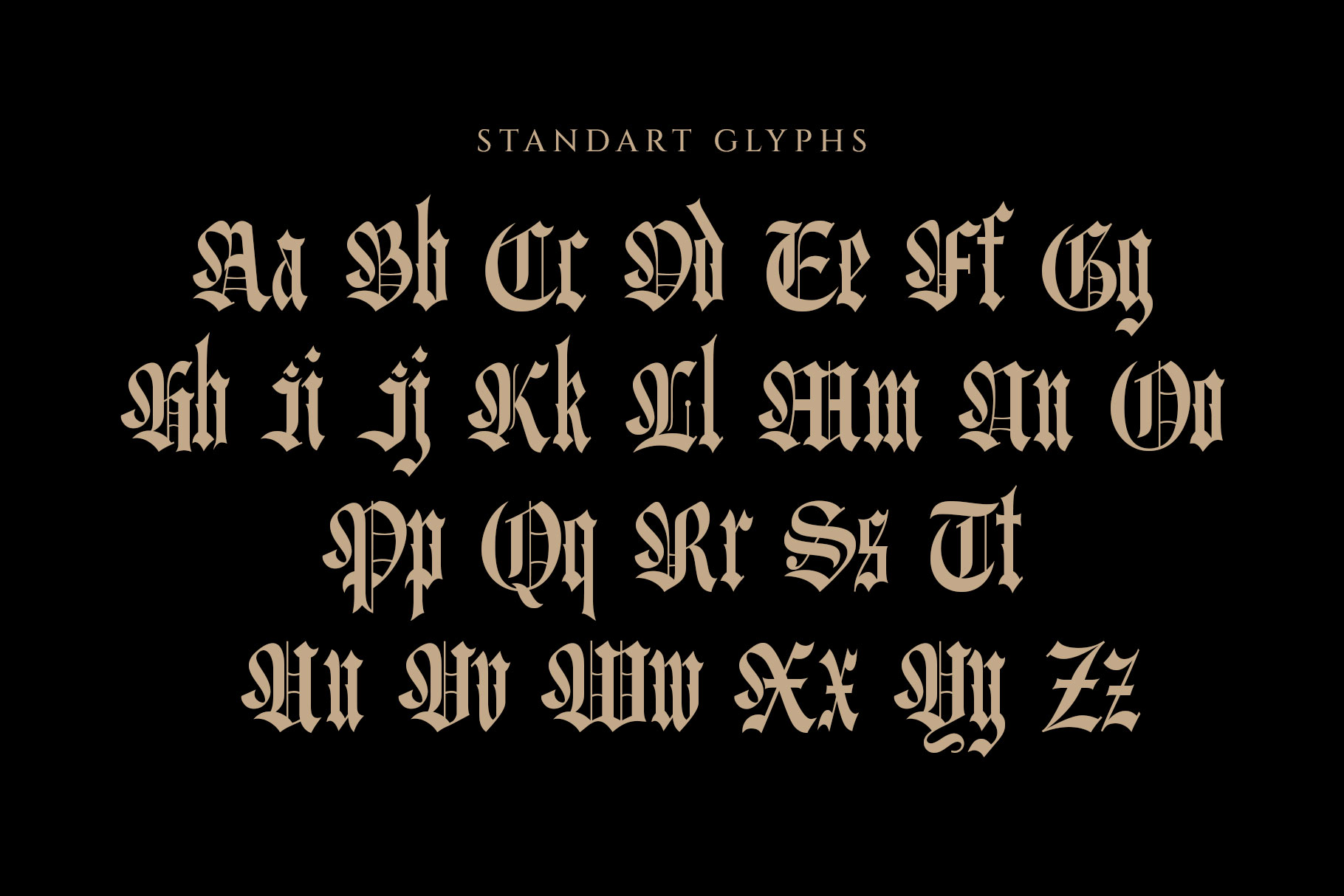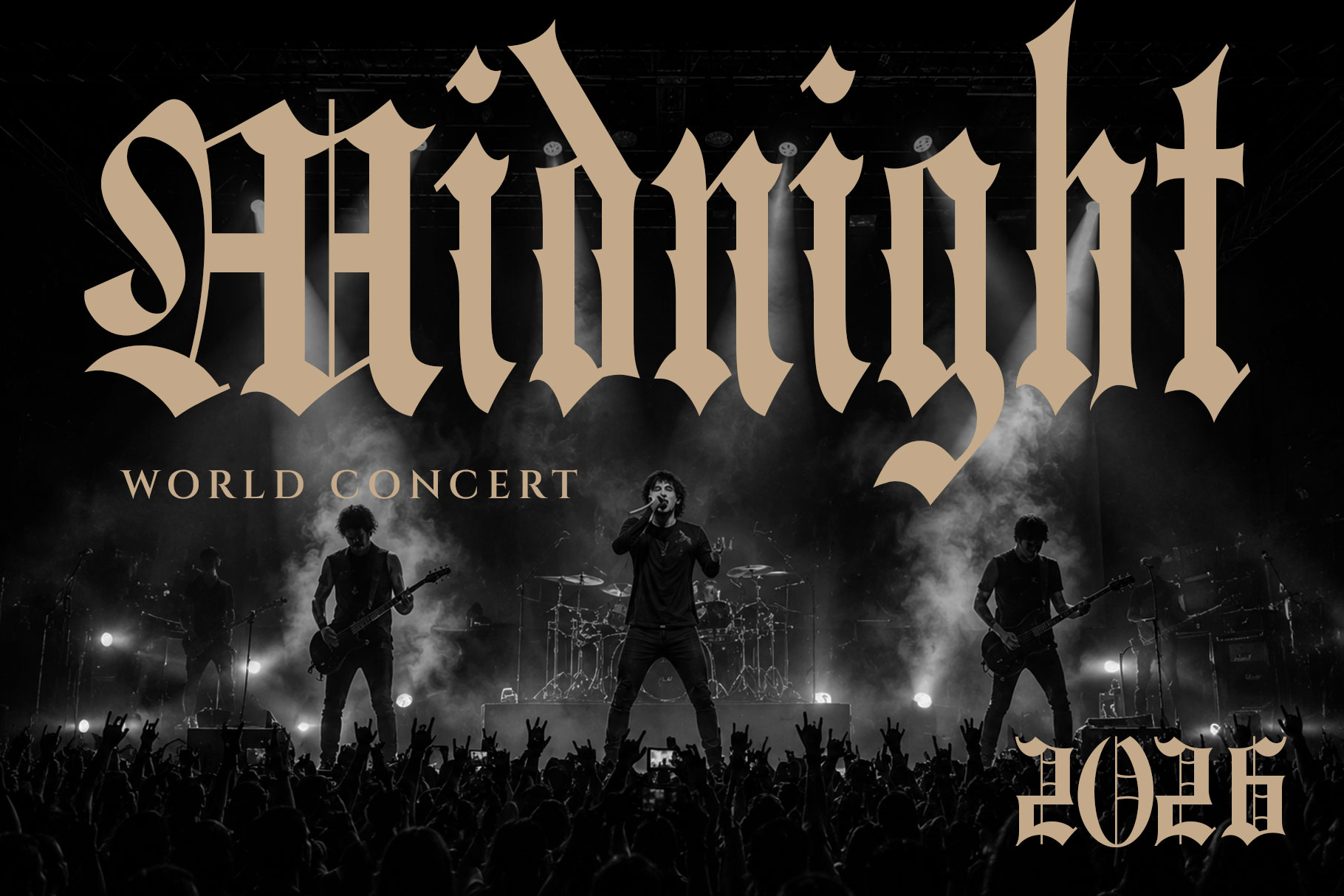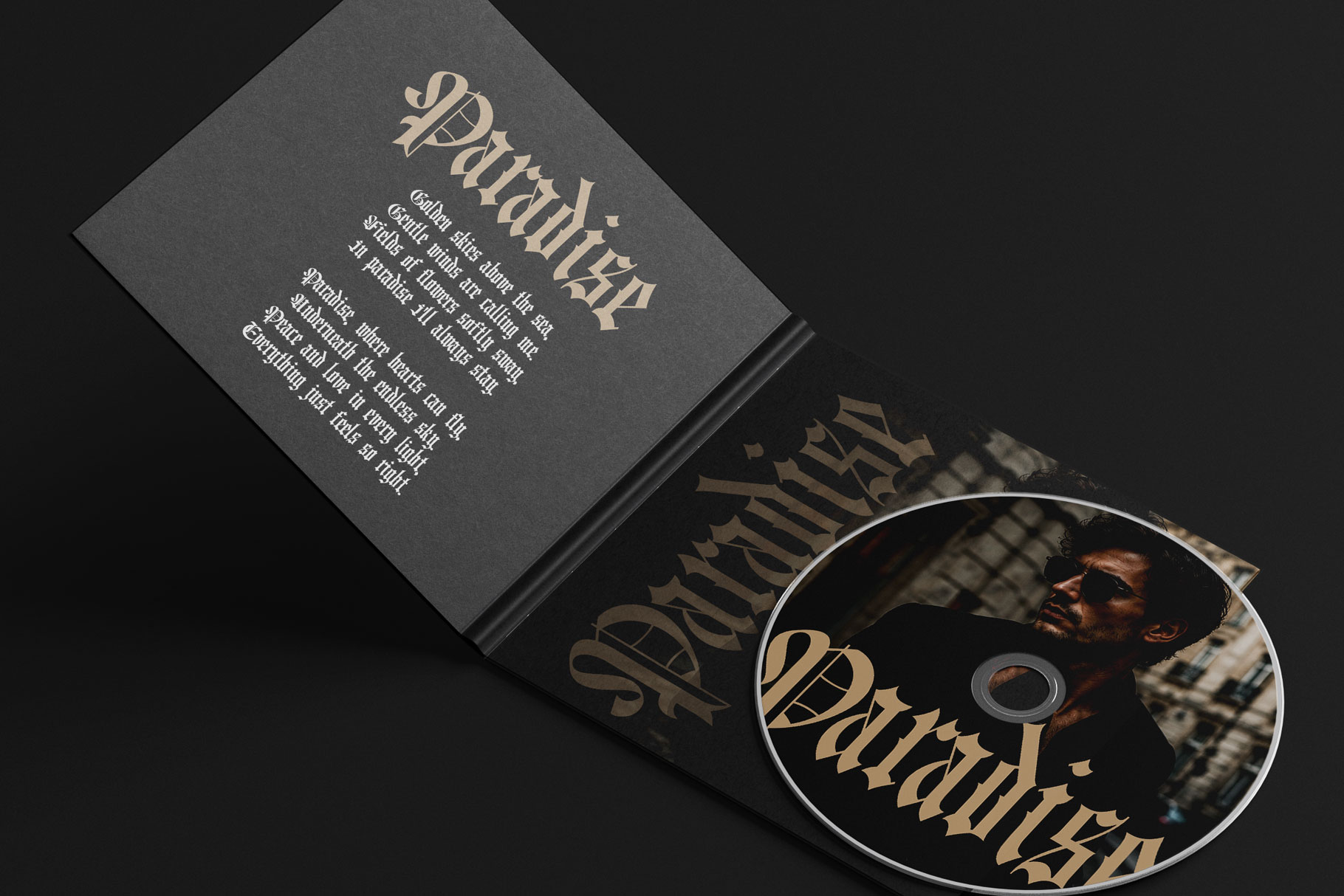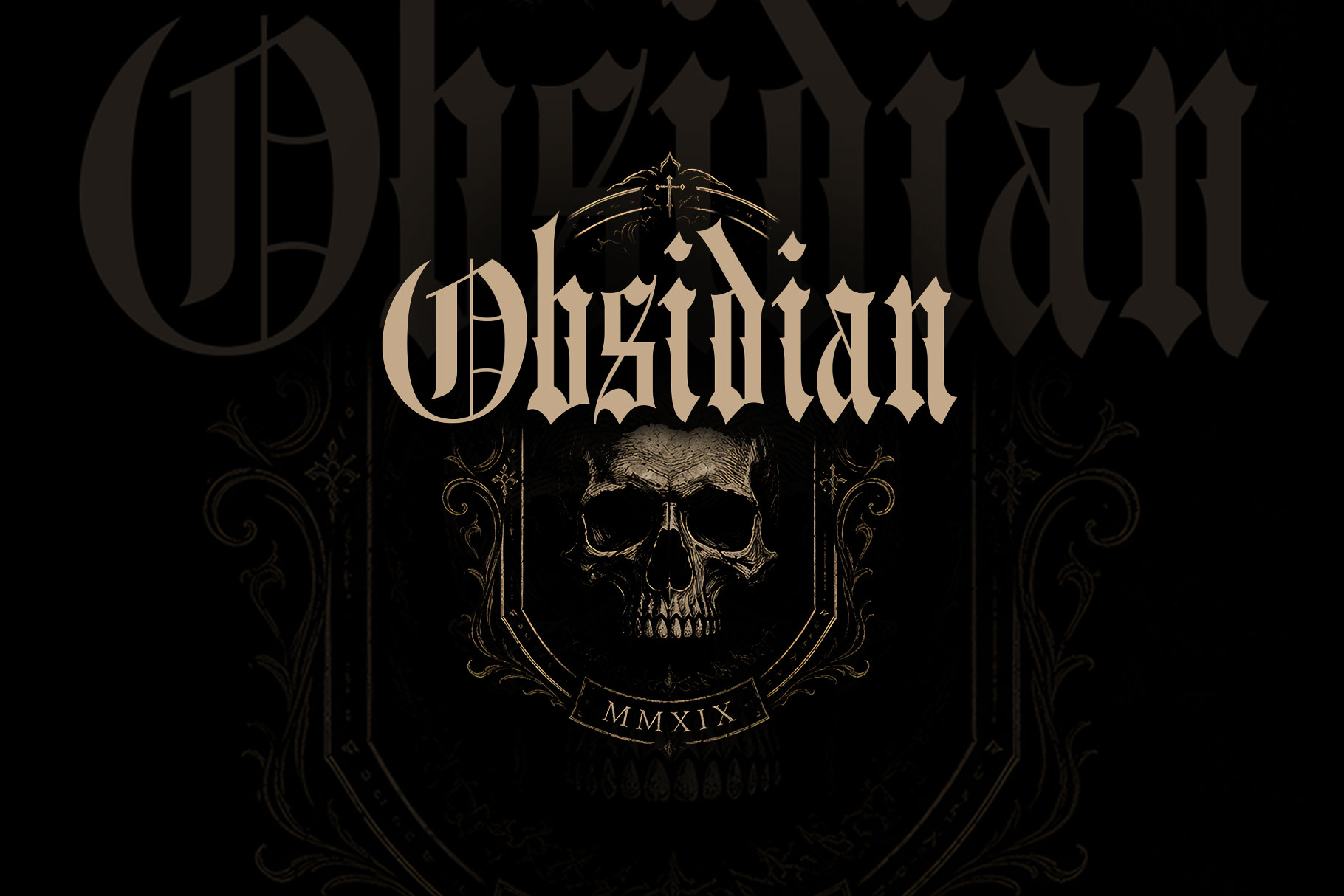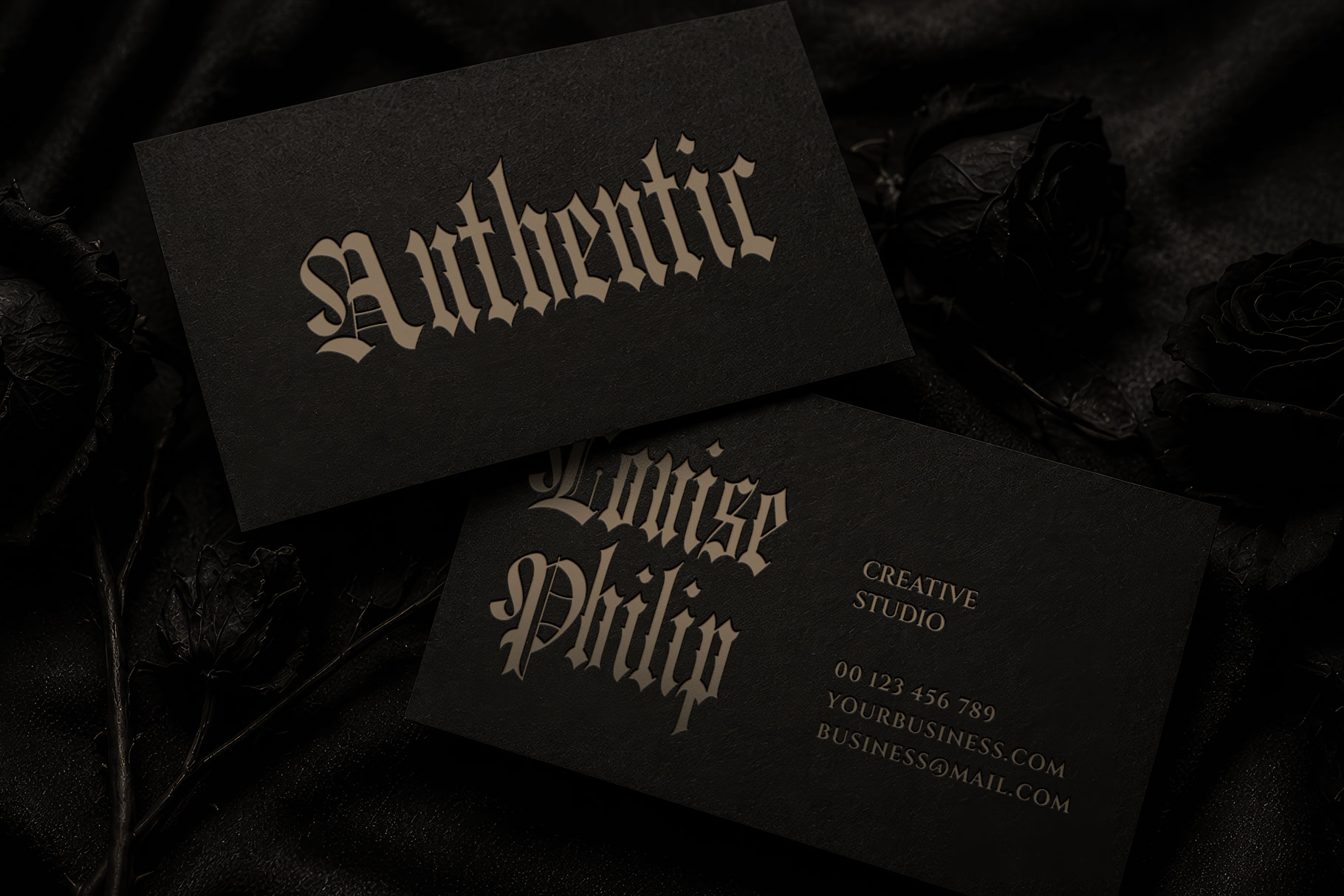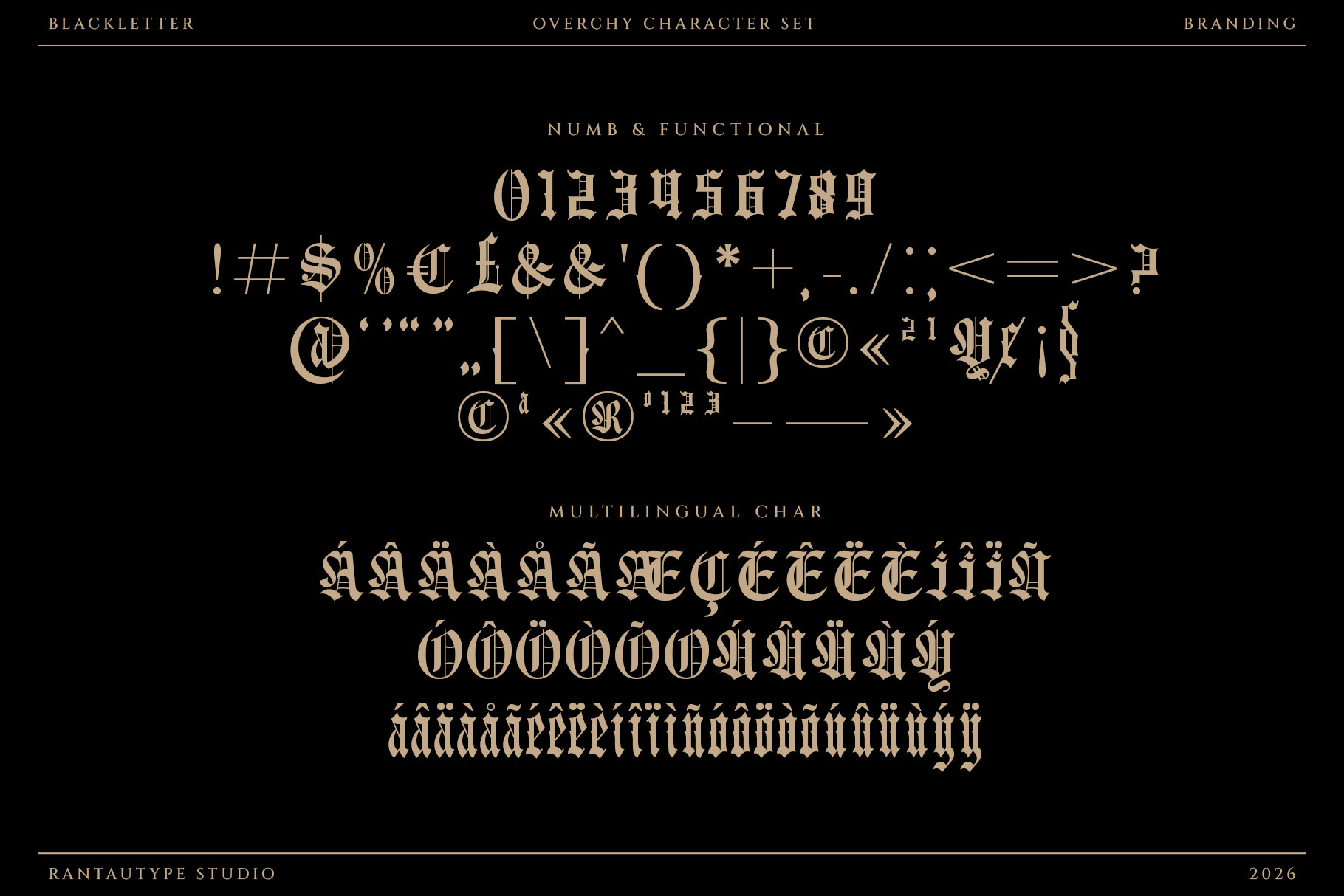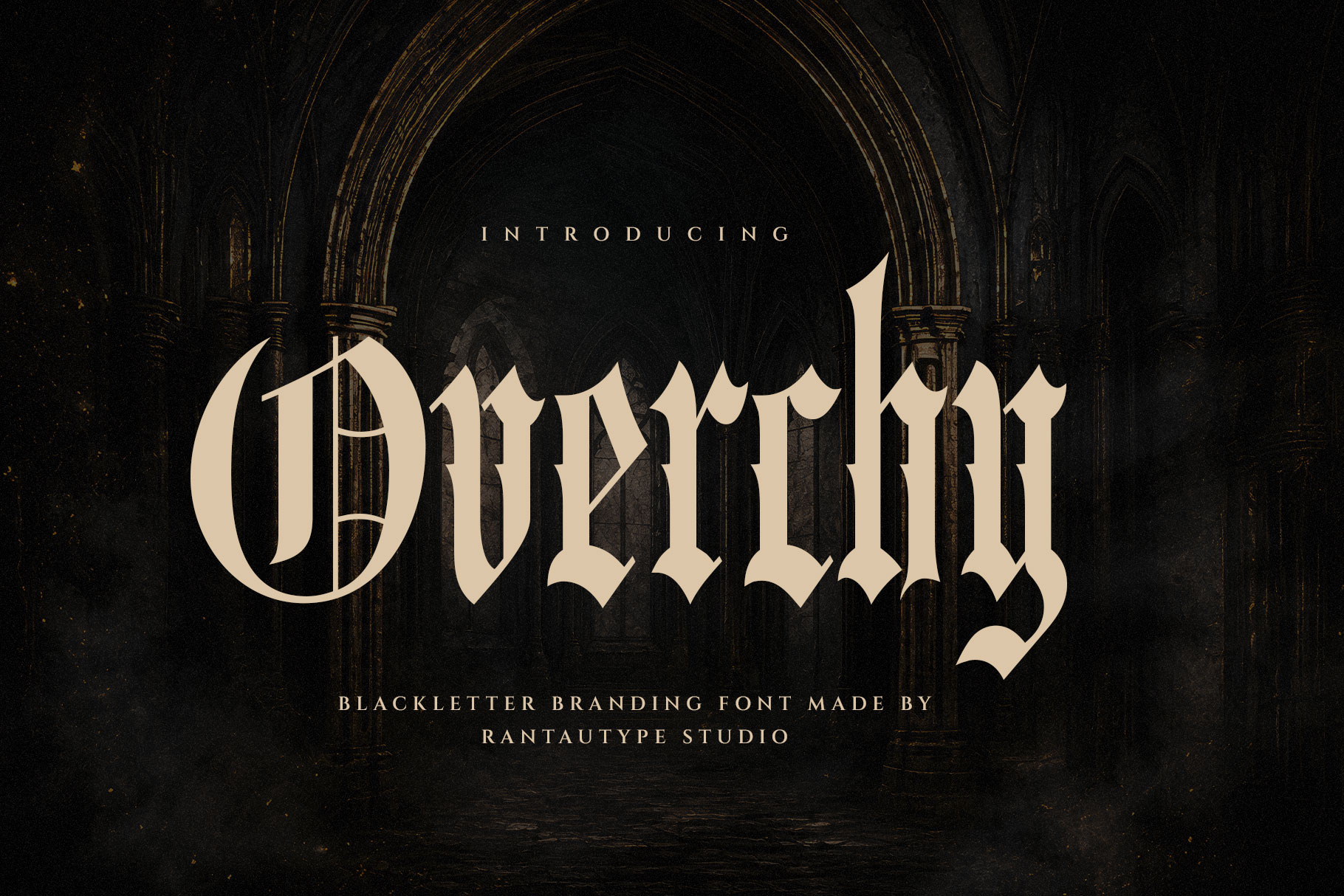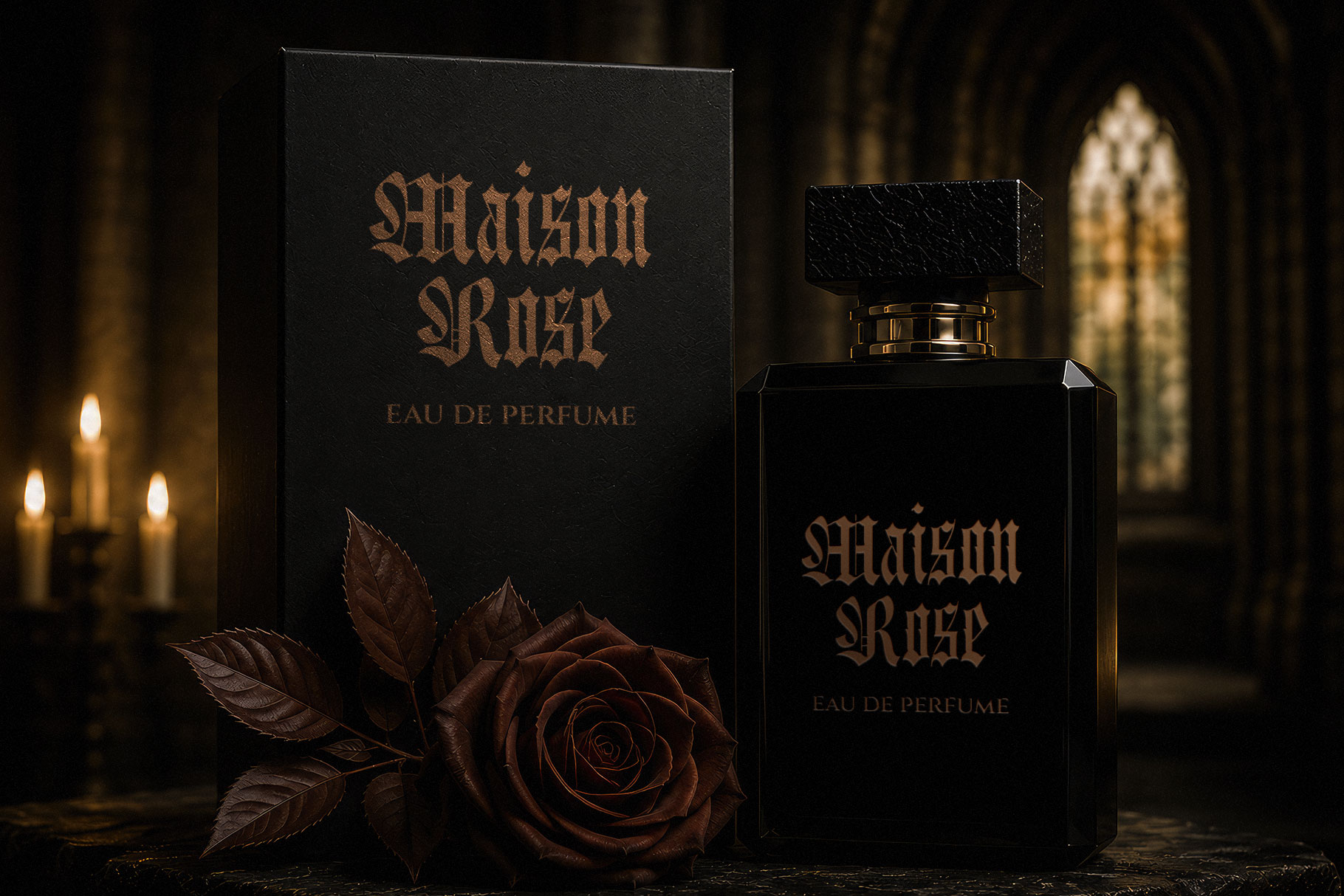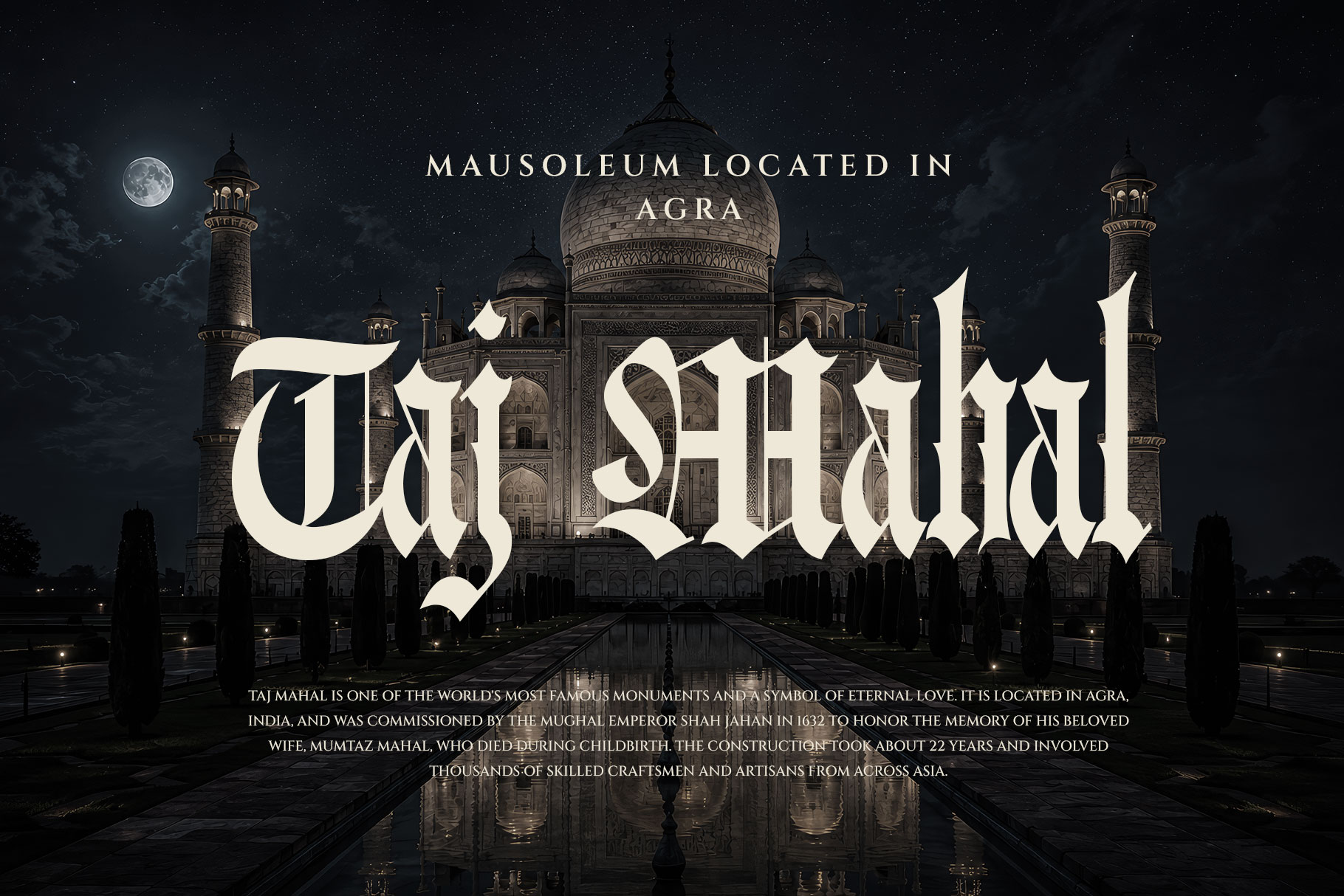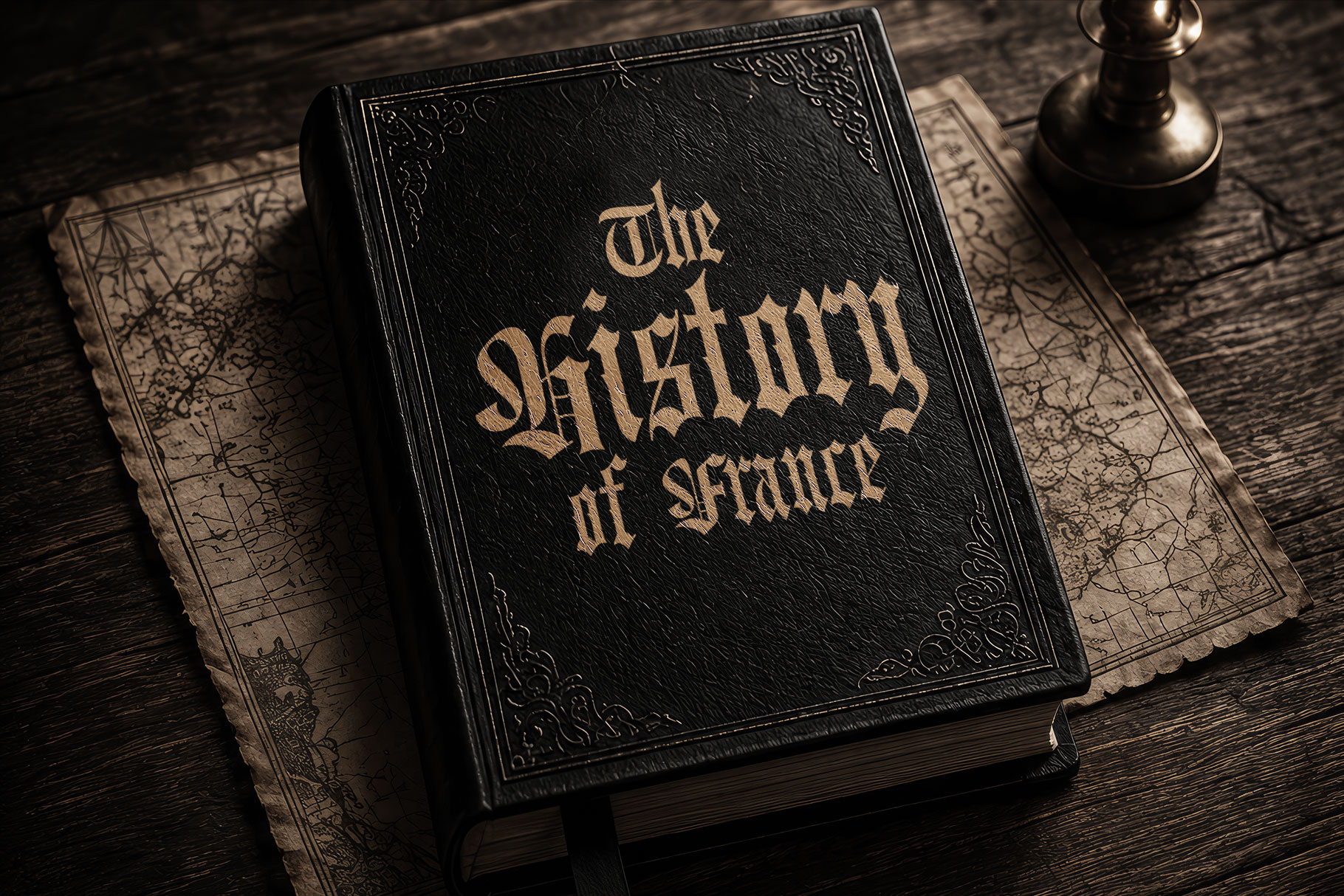
Overchy is a commanding blackletter branding font that embodies the timeless spirit of medieval craftsmanship while embracing the bold confidence of modern luxury design. Inspired by traditional Gothic calligraphy, this typeface features sharp angular strokes, dramatic vertical forms, and carefully balanced ornamental details that create a powerful visual identity.
Overchy a perfectly choice for any creative endeavor, creating, modern, lifestyle design such as logotype, title, cover, branding, invitations, wedding designs, display and magazine, social media posts, advertisements, printed quotes, product packaging, corporate brand, product designs, labels, photography, watermarks, special events and any other project with blackletter touch.
Overchy Blackletter Branding Font